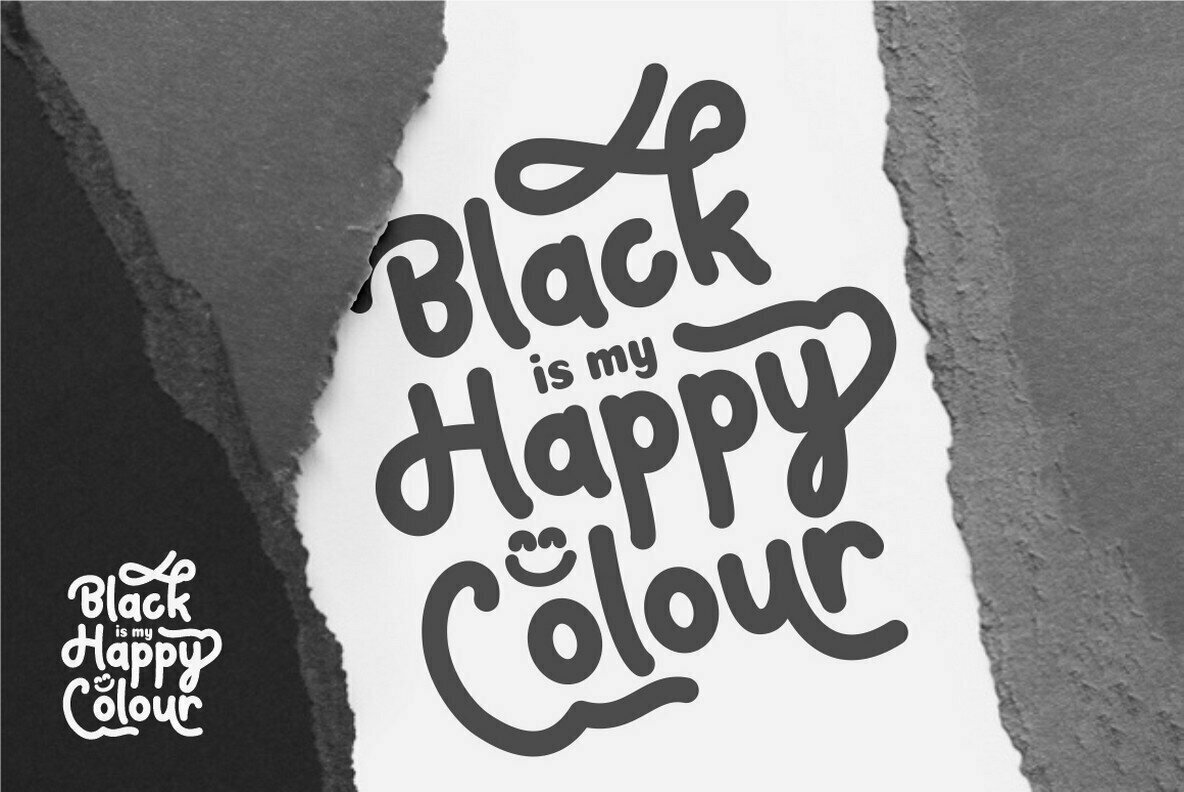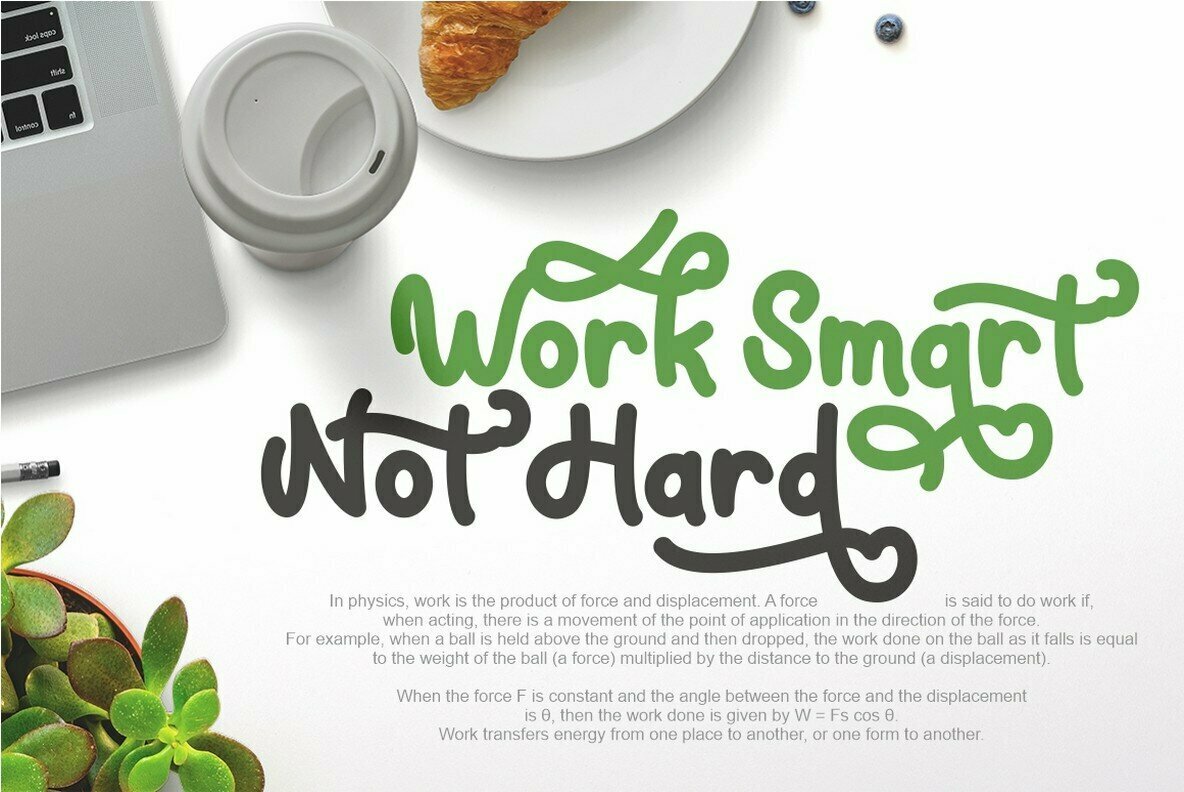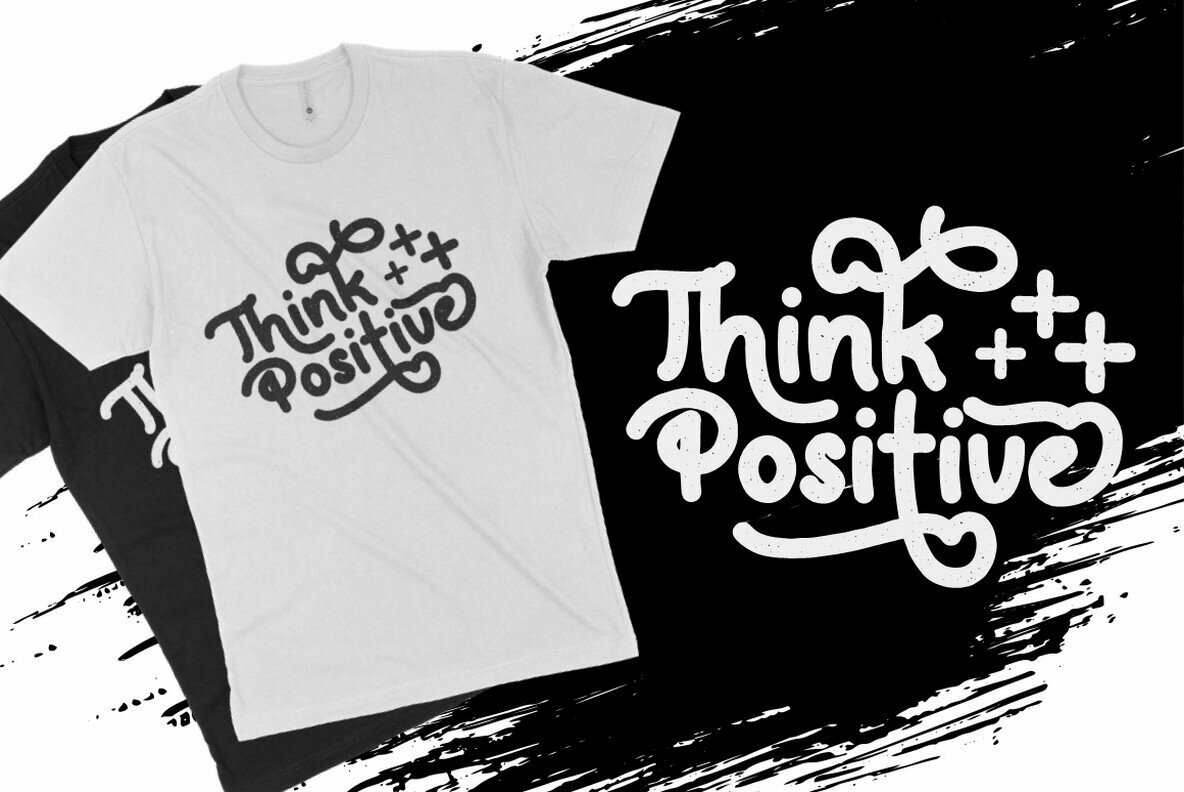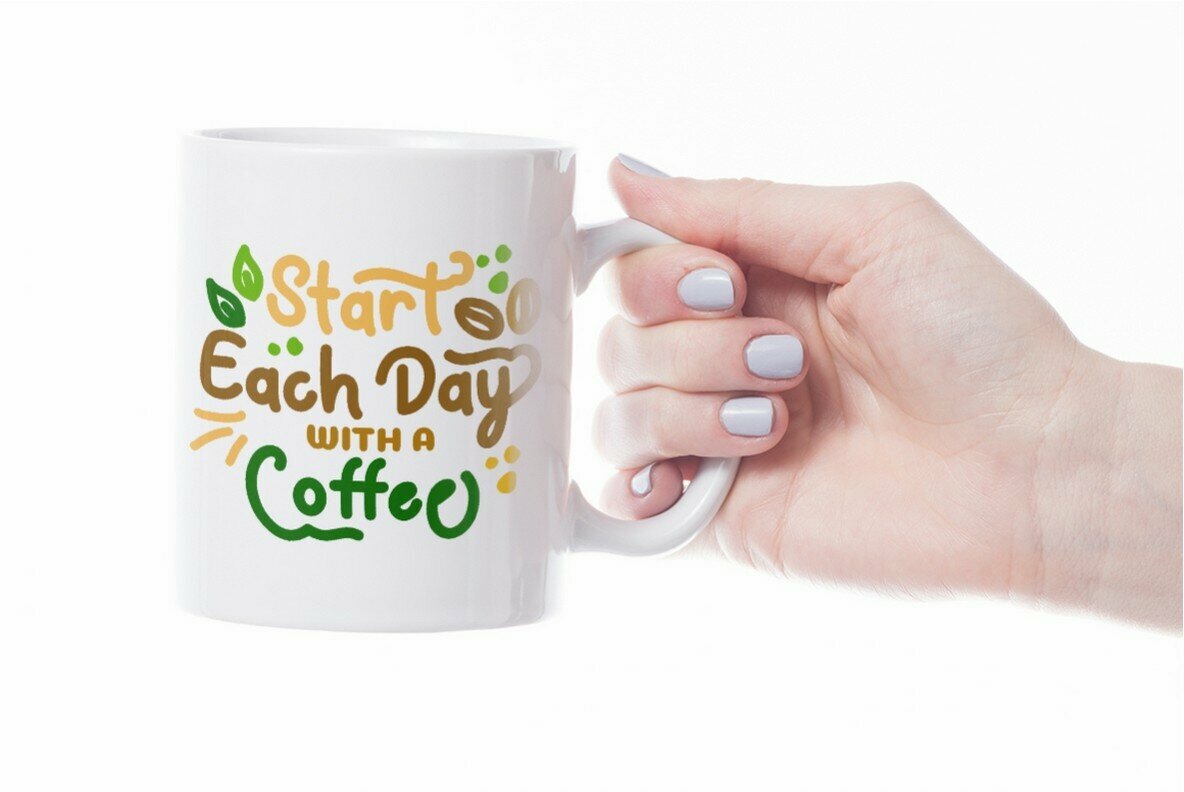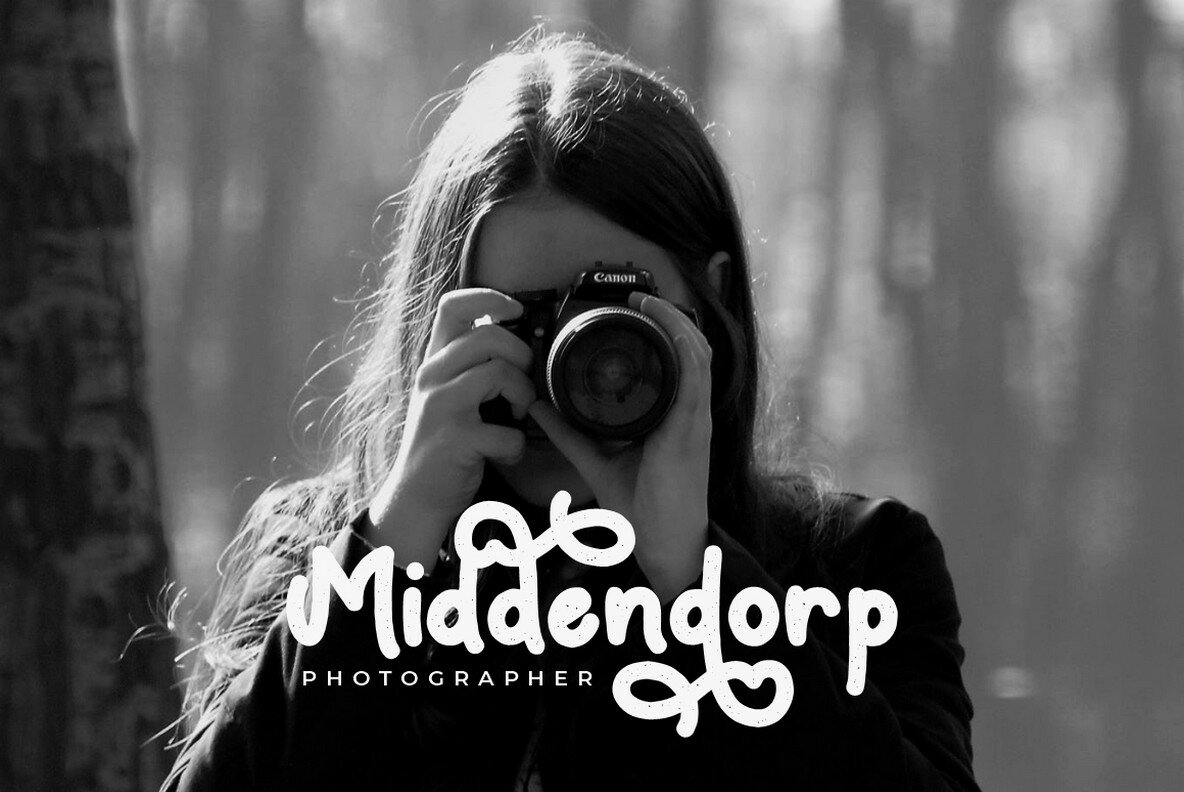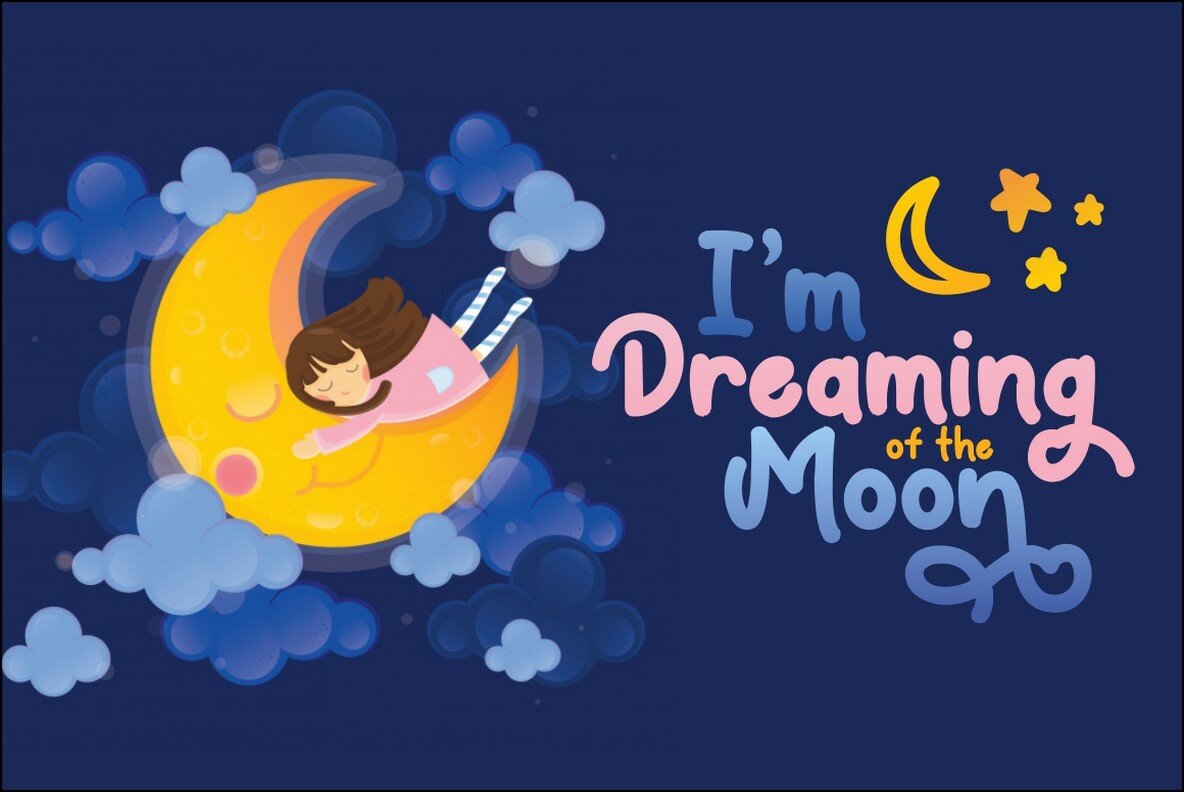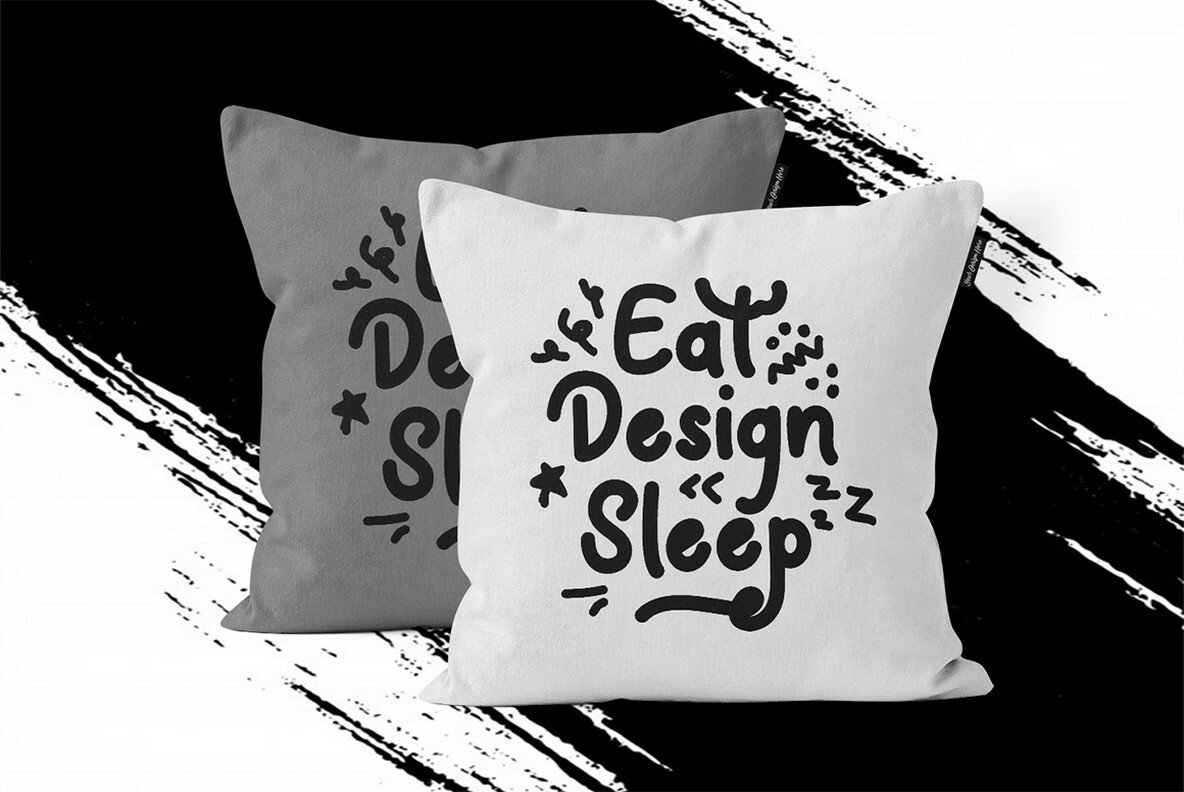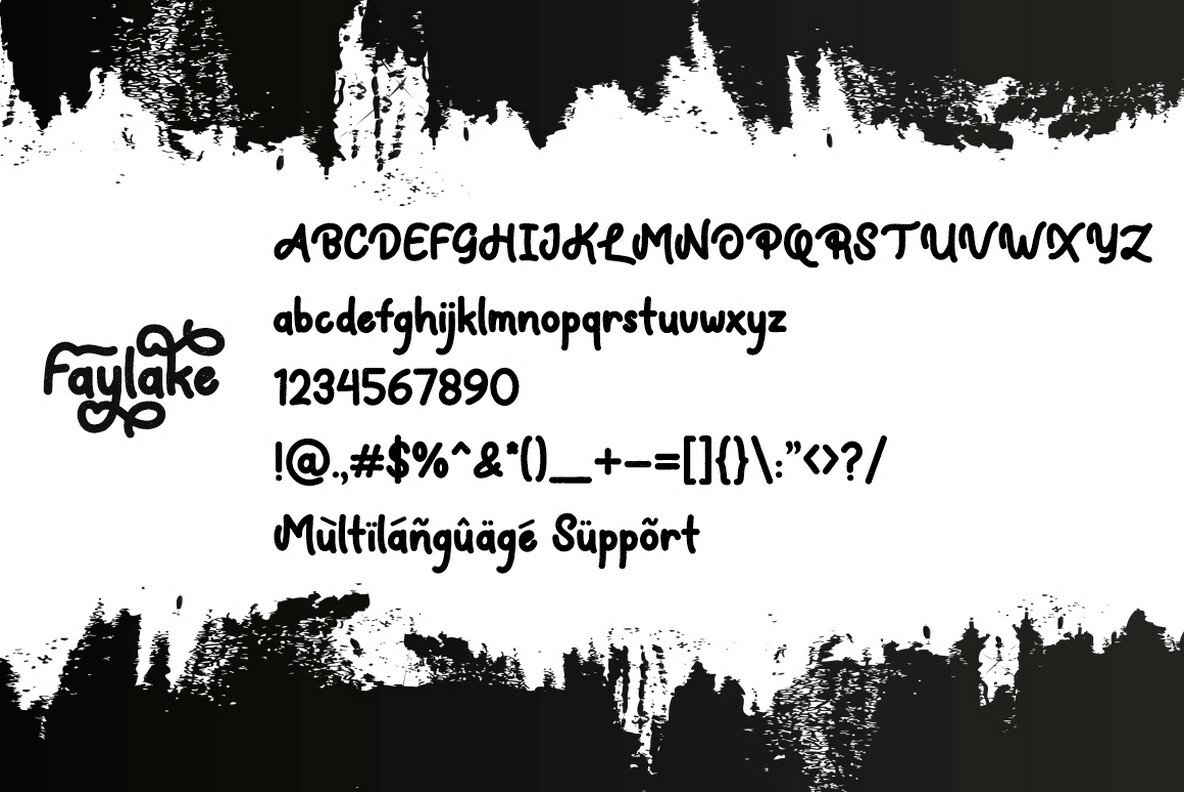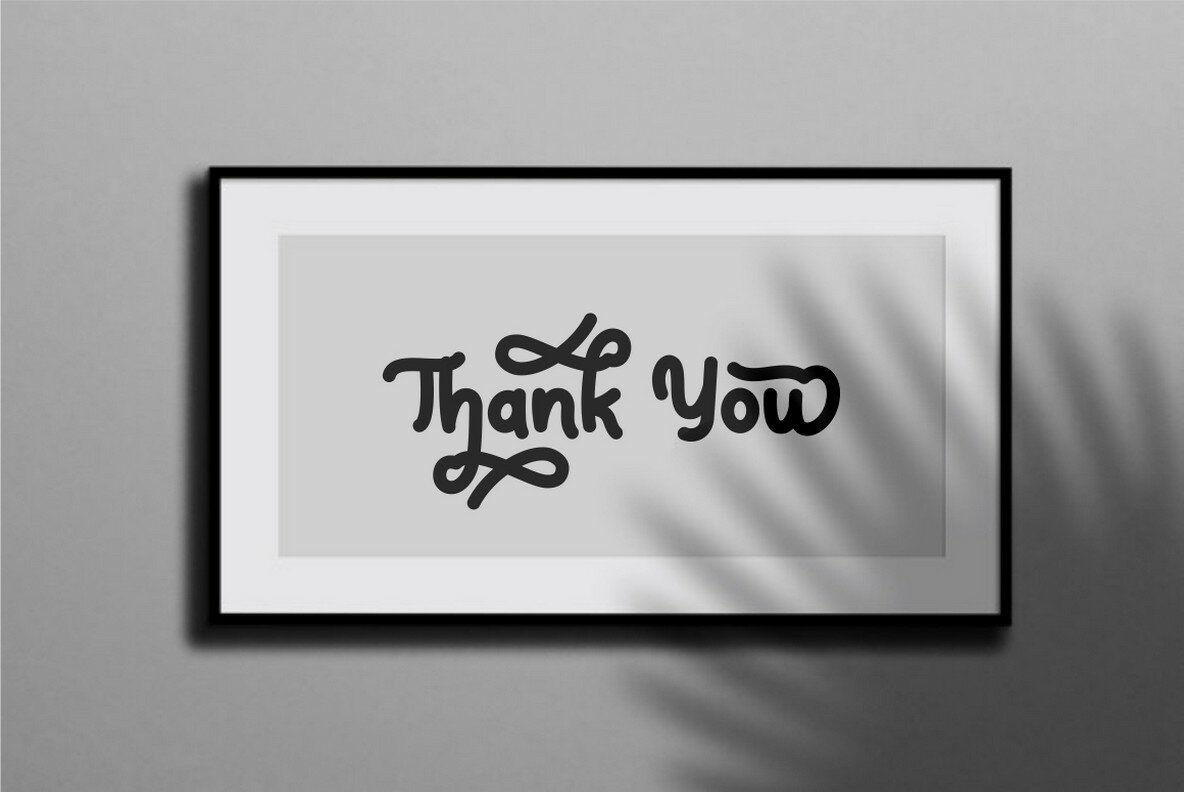
Faylake Font
Faylake Regular
Faylake Rough
Faylake stands out as a bold monoline handwritten font, available in both clean and rough versions. Its versatile aesthetic bridges casual, vintage, and playful styles, making it an ideal choice for a variety of creative applications. From branding designs to posters, apparel, and logotypes, Faylake offers a simple yet striking character that enhances both digital and print projects. The font includes an Opentype feature with numerous alternates, allowing for the creation of eye-catching lettering. Additionally, Faylake supports multiple languages, broadening its usability on a global scale.Faylake: Versatile Monoline Handwritten Font
Opentype Features